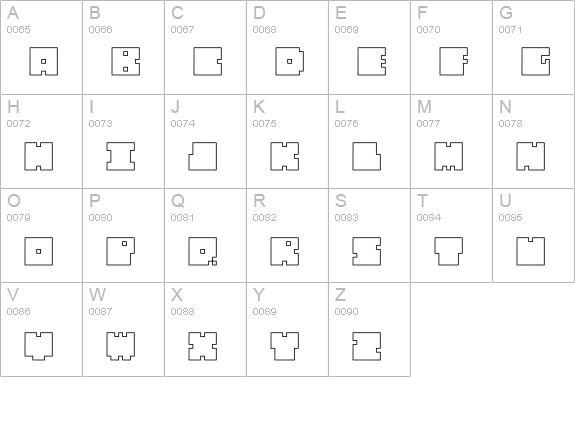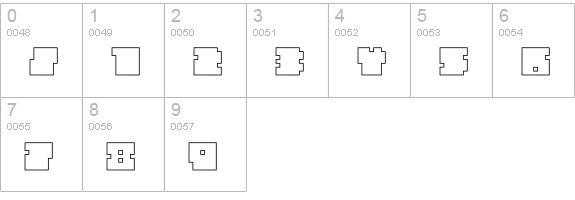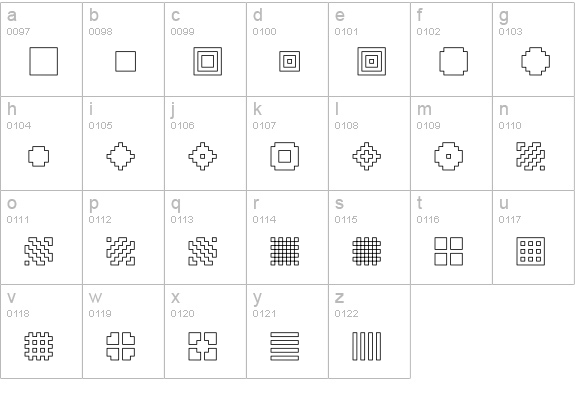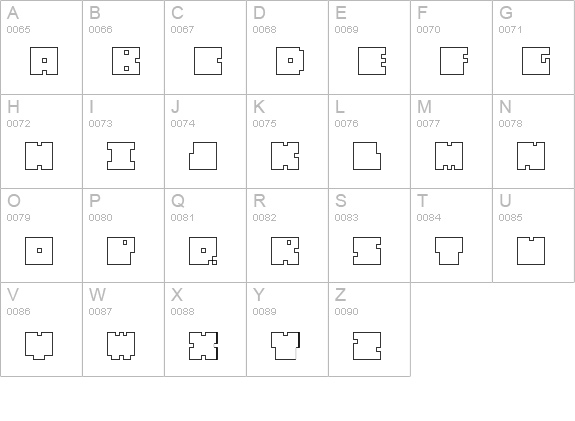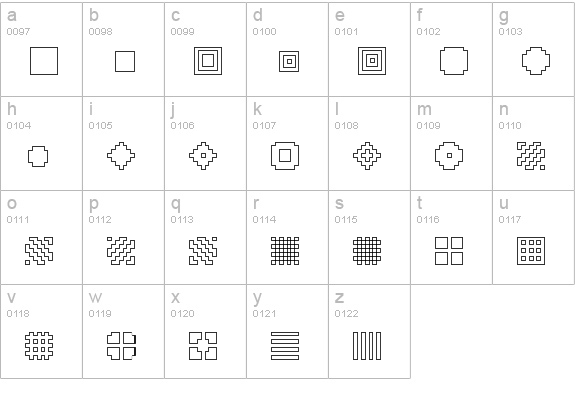
QUBE HOLLOW font is a stunning display font that effortlessly combines modern aesthetics with a touch of artistic flair. Its unique design features clean lines and geometric shapes, creating a captivating visual presence that demands attention. This font is not only visually appealing but also versatile, making it suitable for a wide range of creative projects. Whether you're designing a logo, crafting a poster, or creating eye-catching headlines, QUBE HOLLOW font will effortlessly elevate your work to new heights. One of the standout features of QUBE HOLLOW font is its ability to convey a sense of depth and three-dimensionality. The hollowed-out letterforms add a unique touch, making each character appear as if it is floating in space. This creative element adds a sense of intrigue and sophistication to any design. But what truly sets QUBE HOLLOW font apart is that it is available for free. Yes, you read that right! This incredible font can be freely downloaded at FontsMarket.com, making it easily accessible to designers and enthusiasts alike. Now you can add a touch of modern elegance to your projects without breaking the bank. So why wait? Discover the endless possibilities that QUBE HOLLOW font brings to your design arsenal. Download it for free at FontsMarket.com and explore the world of creativity that awaits you. Embrace the power of QUBE HOLLOW font and let your designs shine like never before.